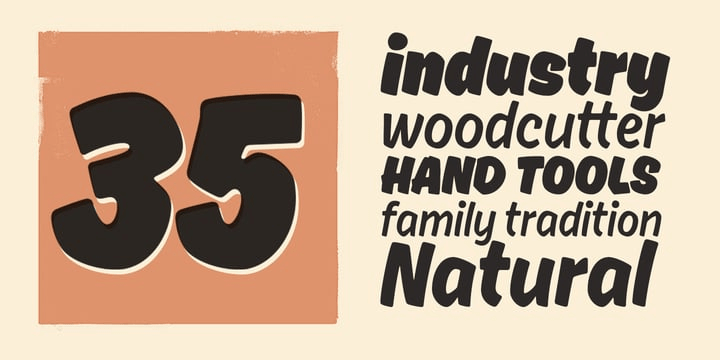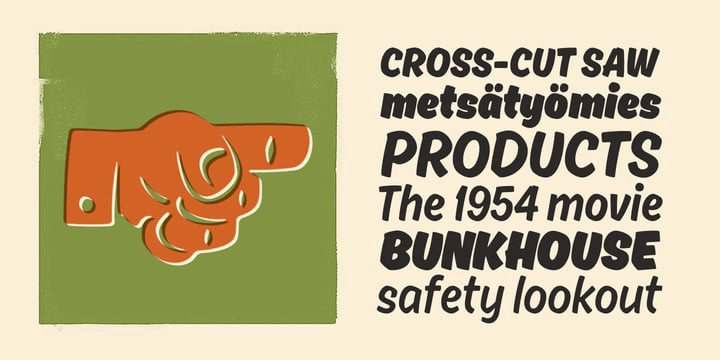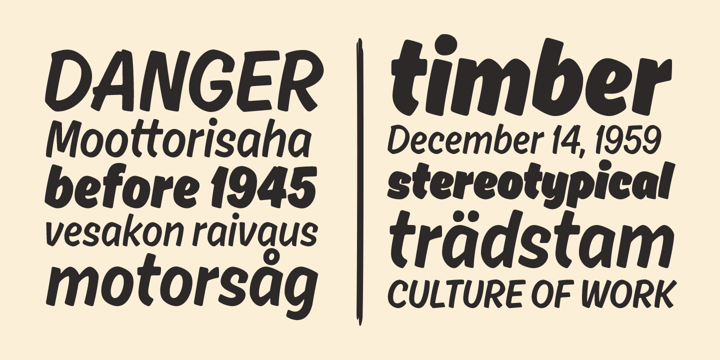
About Ahkio
Ahkio is a brushed disconnected script family of 5 fonts. Ahkio\’s roots are in 1930s sign painting and showcard lettering but with a modern and individual twist. Main characteristics are soft, rounded forms and a bit curved stems. Ahkio is a friendly…